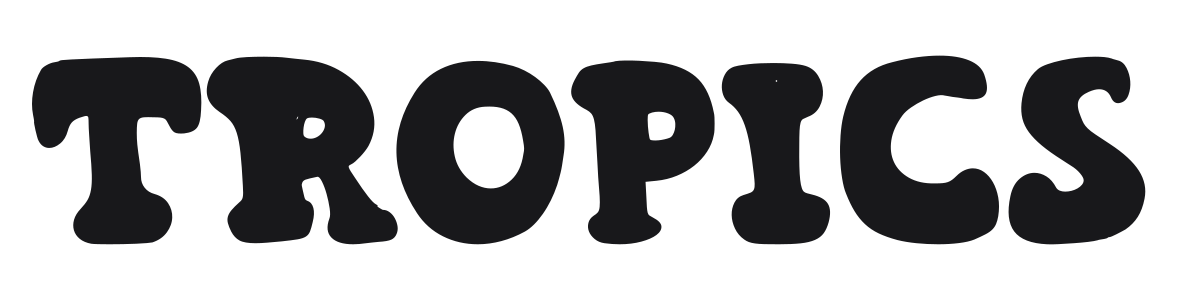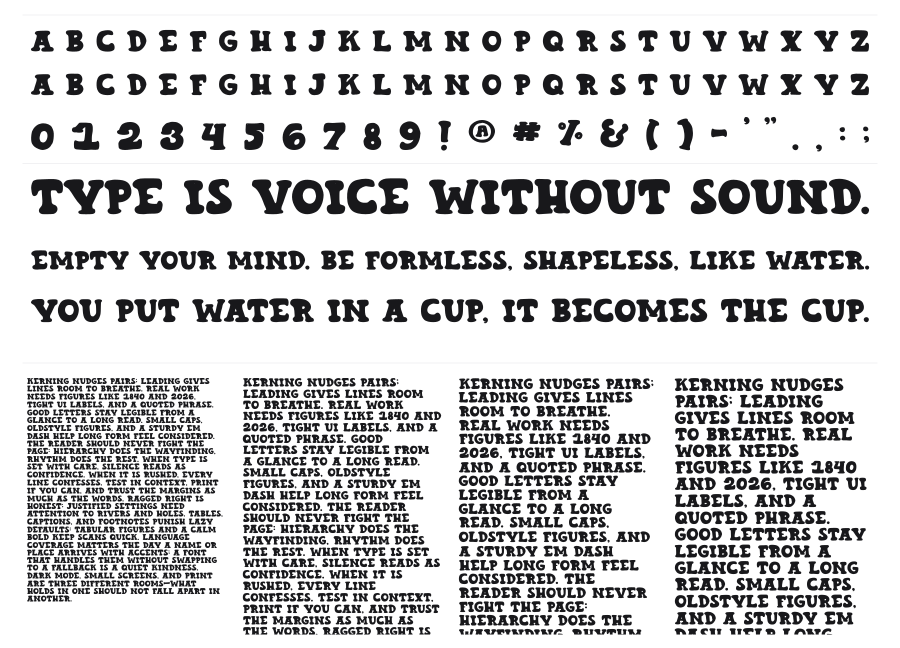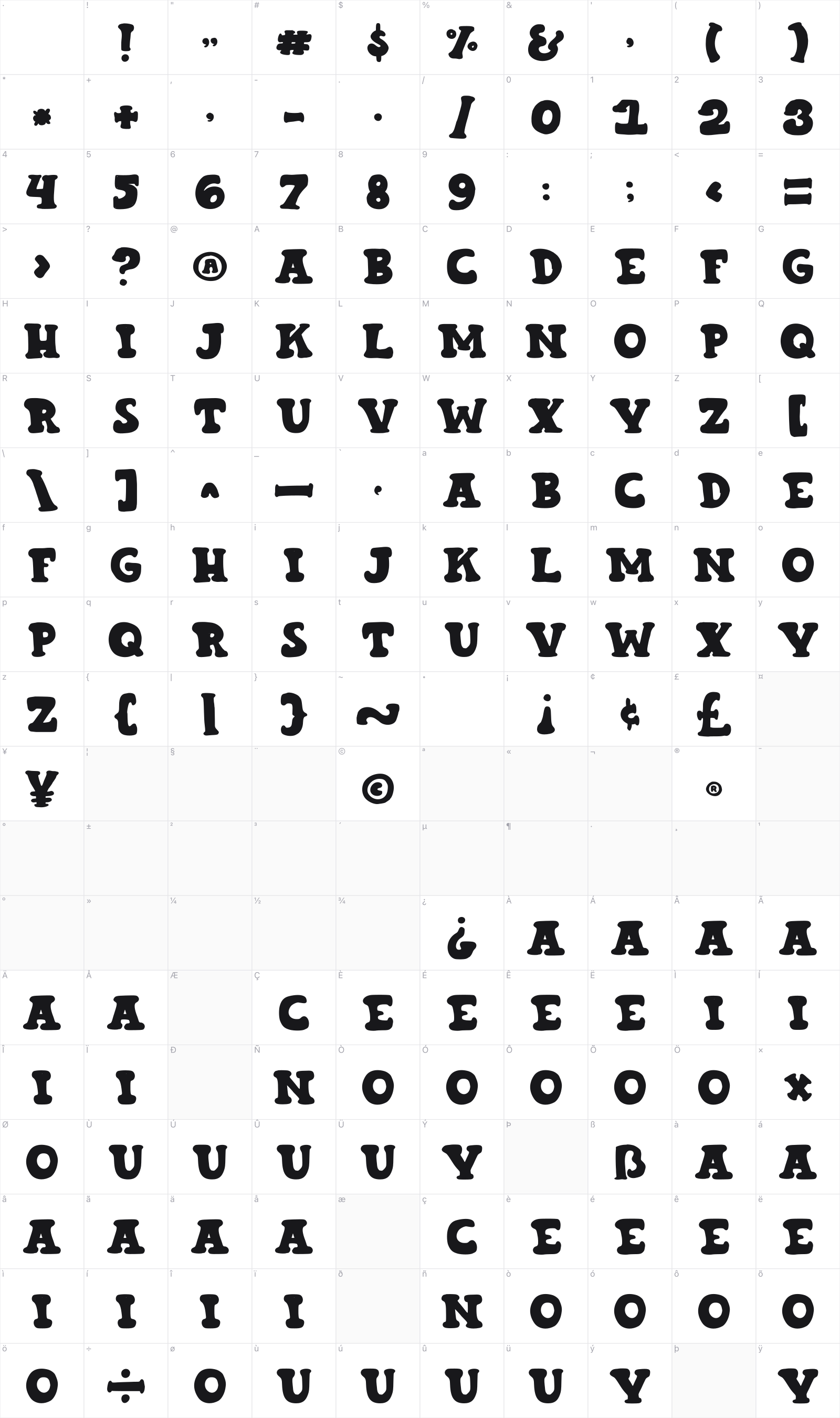
Tropics
Tropics is a heavy groovy serif with thick, rounded strokes and soft bulbous serifs straight out of the 1970s. The inflated, bubbly quality of each character gives it a warm, exuberant energy that works naturally for tropical branding, festival posters, and food packaging. It leans hard into retro fun without tipping into parody.